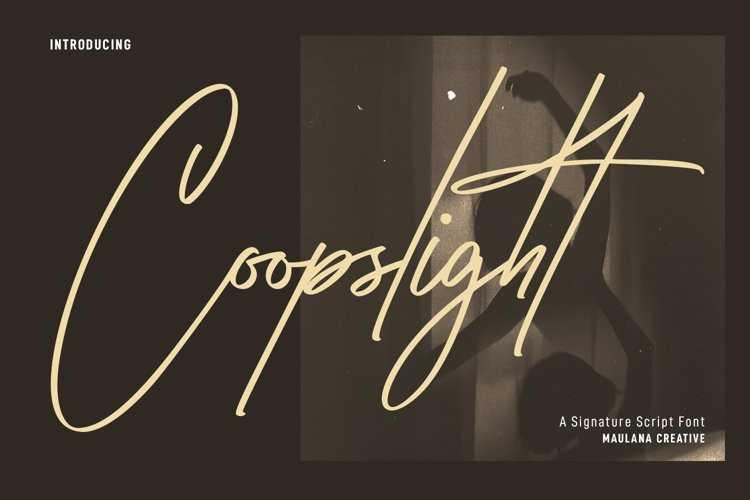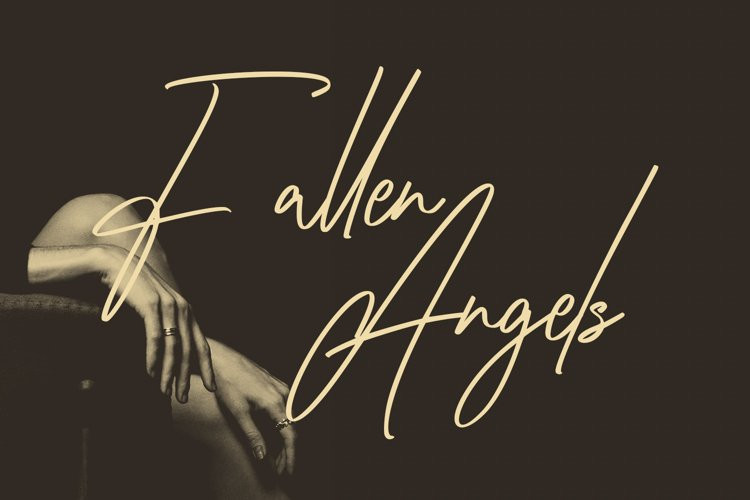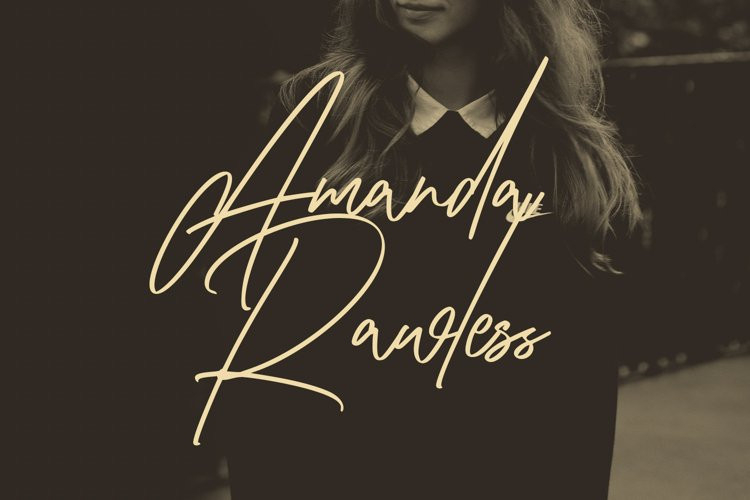
Coopslight Font
Coopslight FontCoopslight is a tall expressive signature font. With medium stroke, fun character with a bit of ligatures and alternates. To give you an extra creative work. Coopslight font support multilingual more than 100+ language. This font is good for logo design, Social media, Movie Titles, Books Titles, a short text even a long text letter and good for your secondary text font with sans or serif. Make a stunning work with Coopslight font.